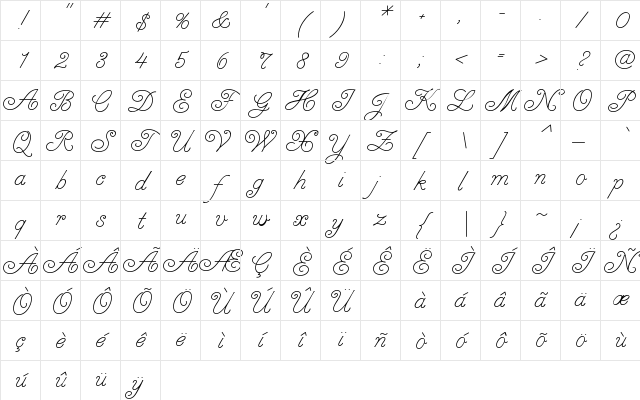
ConstanzeMonoOneMed1 Regular
Design Context for ConstanzeMonoOneMed1
ConstanzeMonoOneMed1 uses fixed-width spacing throughout, giving it the structured, systematic character associated with coding environments and technical documentation.
Pro Tip: Use ConstanzeMonoOneMed1 with slightly increased line-height for extended reading - fixed-width spacing can feel dense in longer passages without extra breathing room.